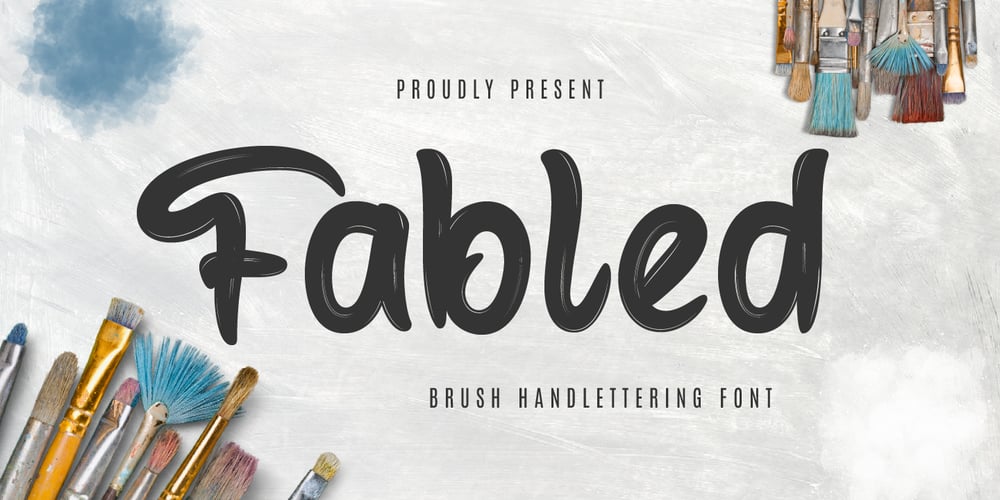
Fabled Font Family was designed by Lita Faolina and published by Product Type. Fabled contains 1 styles and family package options. Fabled is a brush handwritten font that brings a touch of fantasy to your designs. Its unique, whimsical characters are perfect for designs that require a touch of magic and imagination. Whether you’re creating a logo for a fantasy brand or a headline for a fairy tale book, Fabled adds a touch of magic that is sure to captivate your audience.